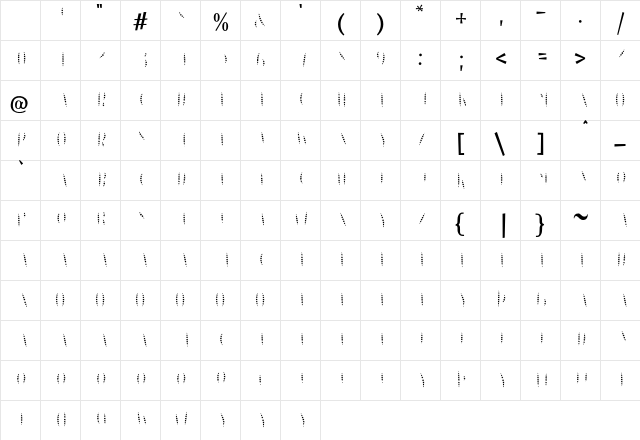
Les Paul has an approachable, lighthearted character - its loose, expressive forms are well-suited to children's content, casual branding, and fun-first design.
Font Pairing: Pairs well with a rounded or humanist sans for body copy, maintaining the friendly tone without relying on Les Paul to carry extended reading.
Pro Tip: Use Les Paul at larger display sizes where its expressive character can land. Pair with a clean, simple sans for body copy to maintain readability.